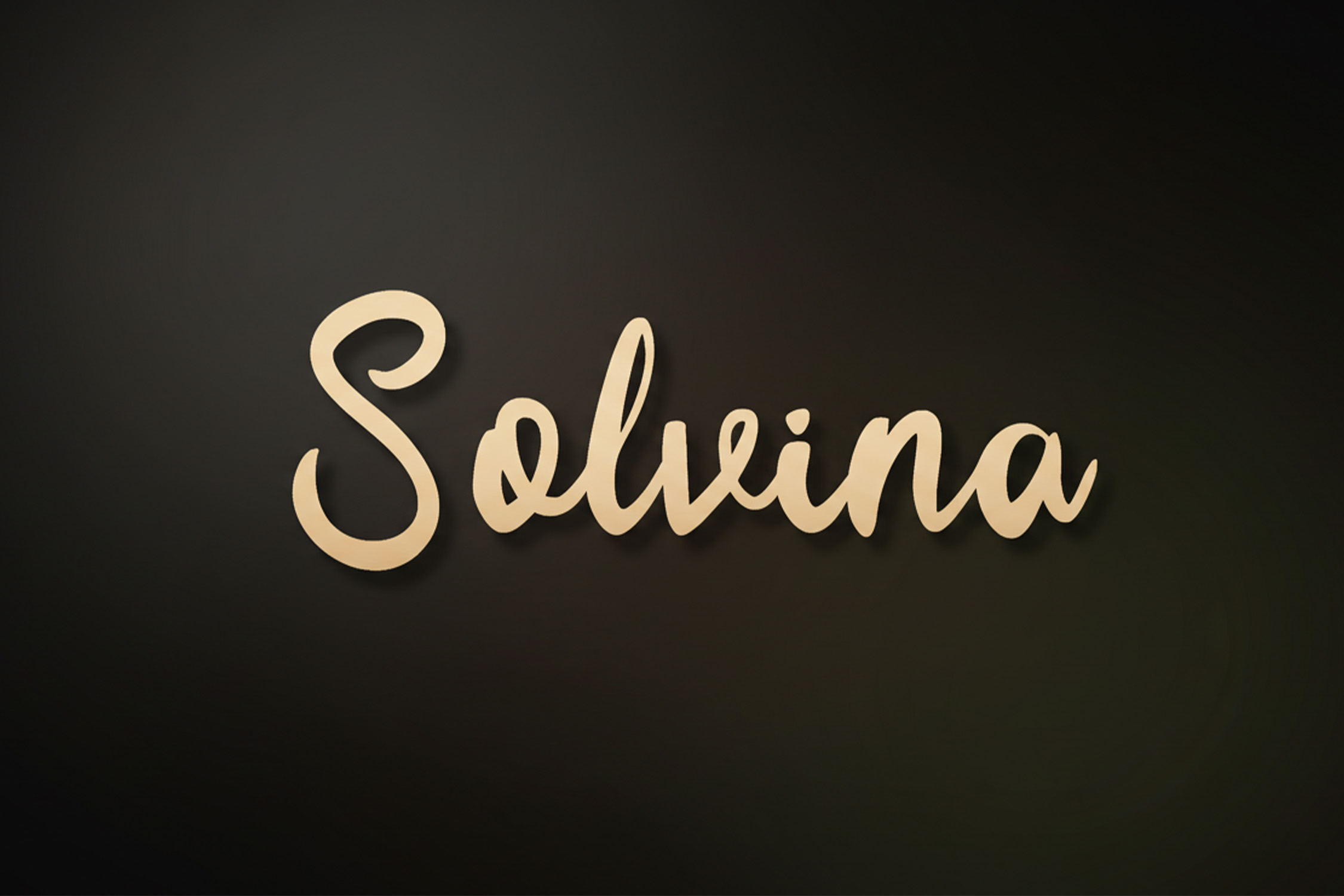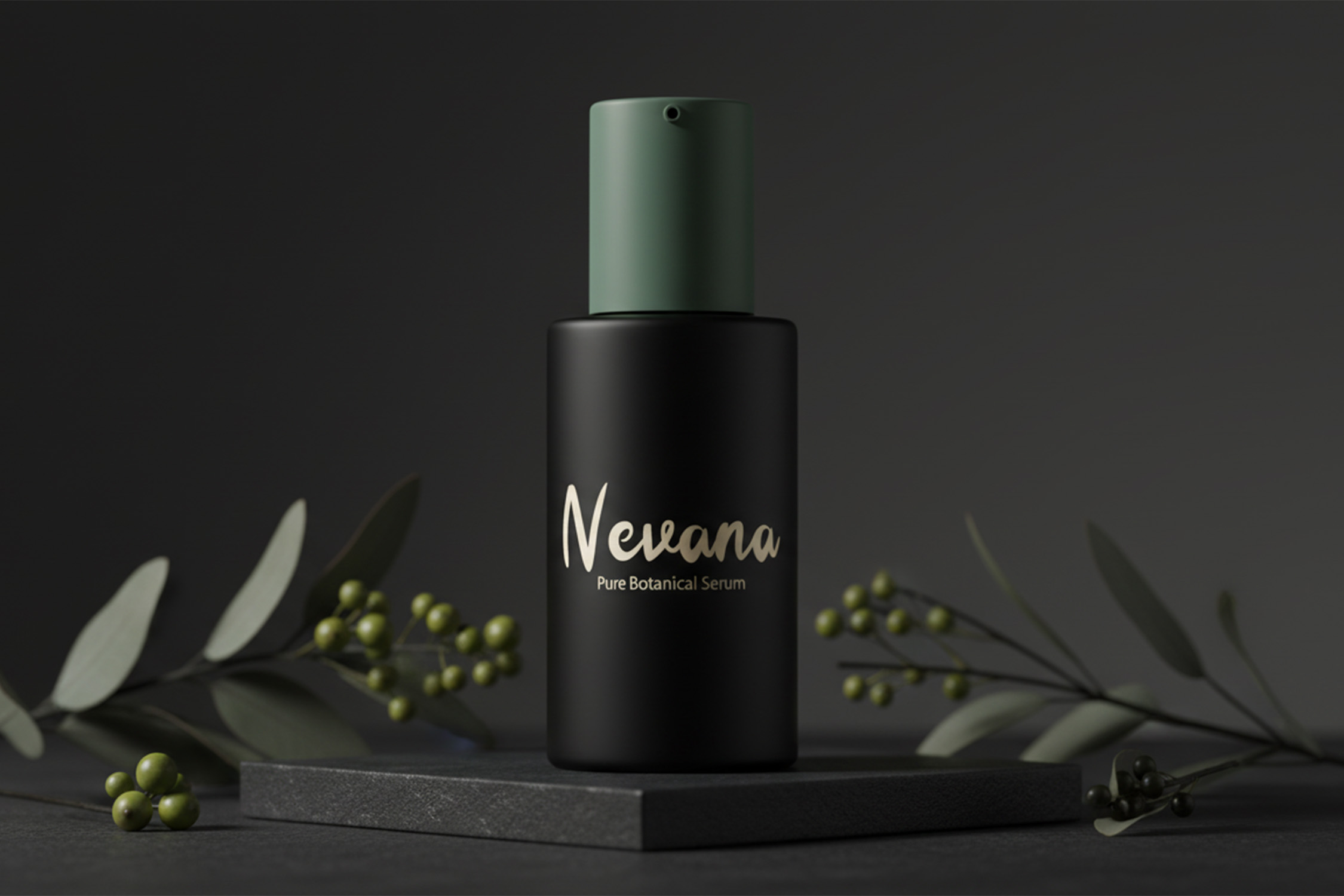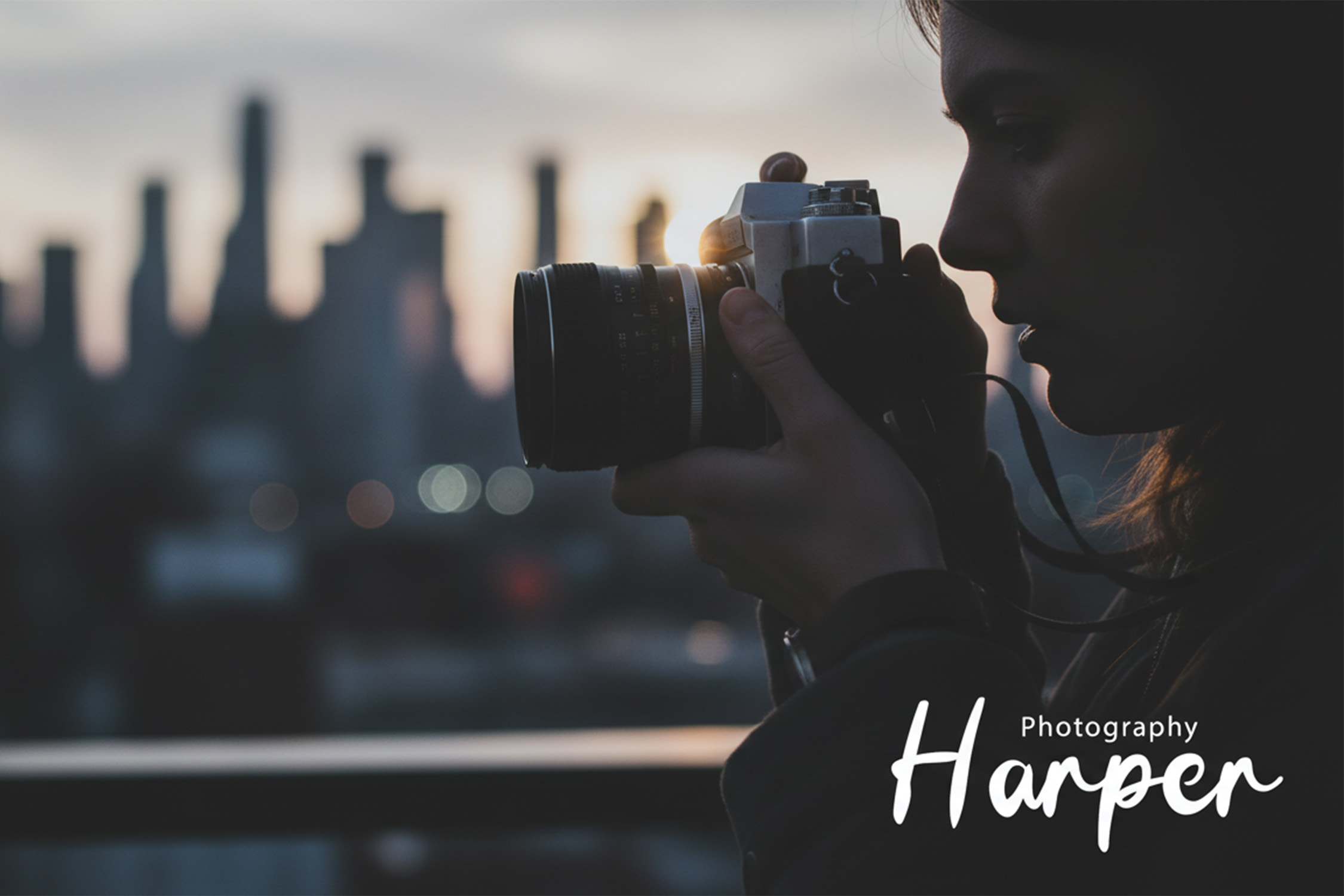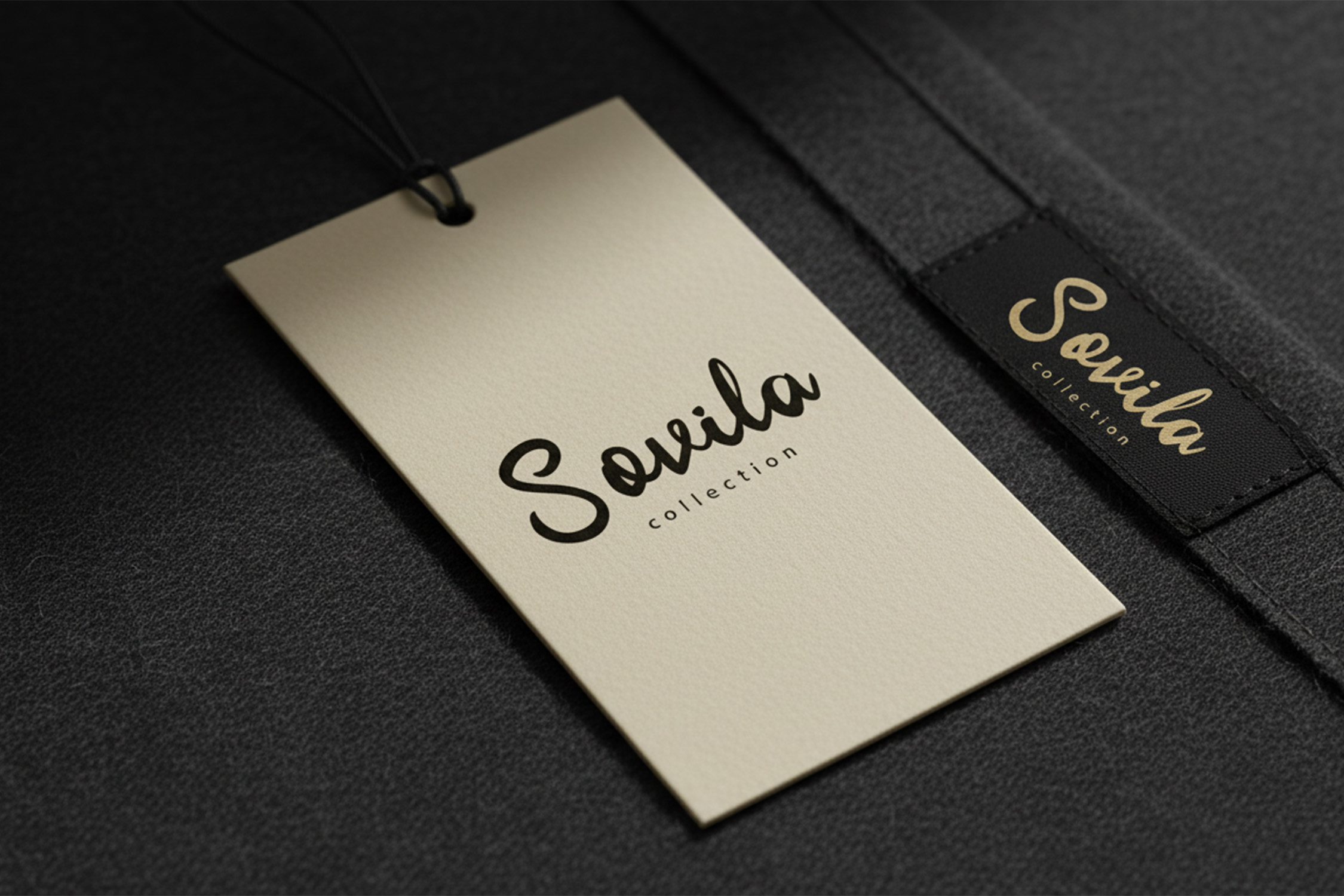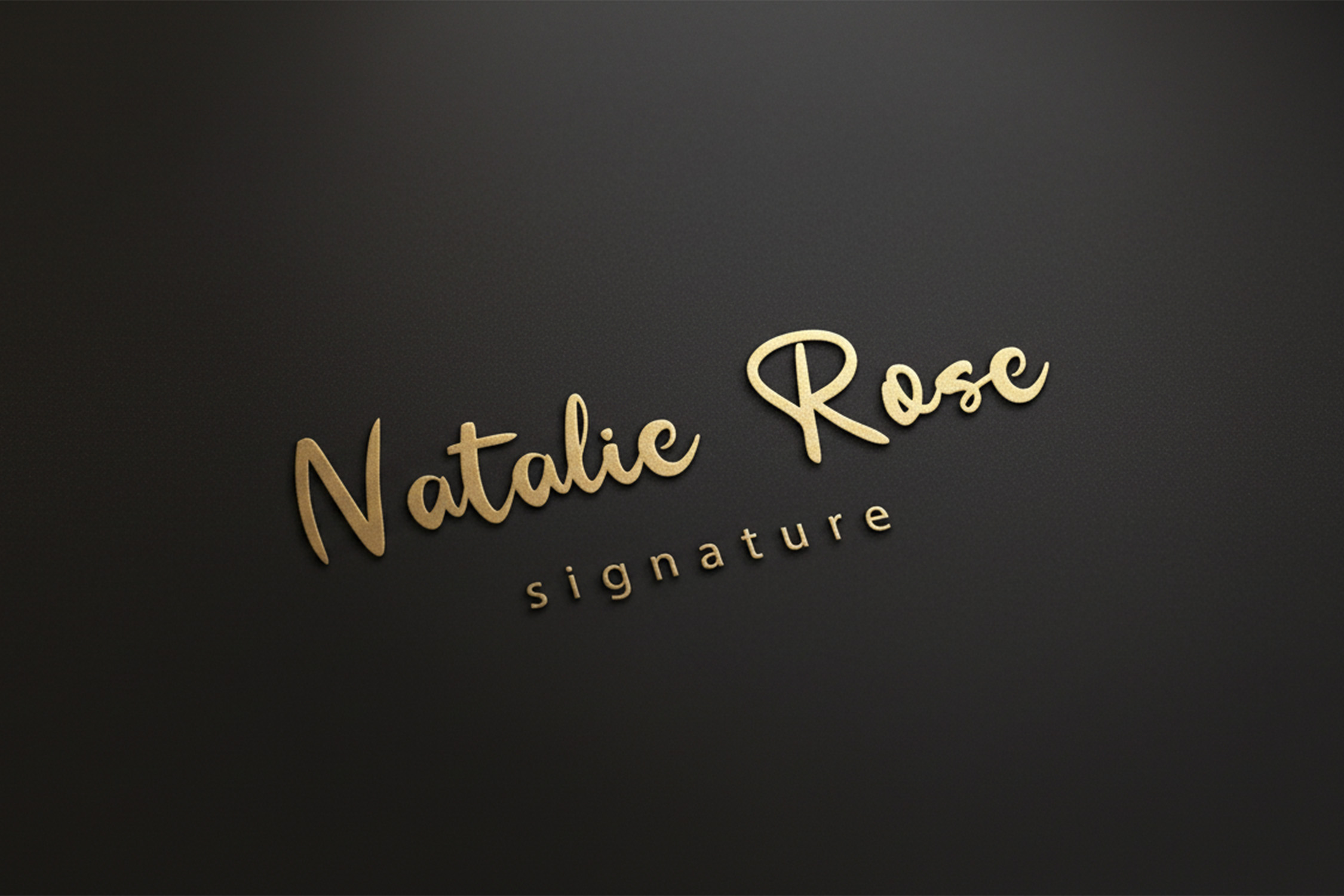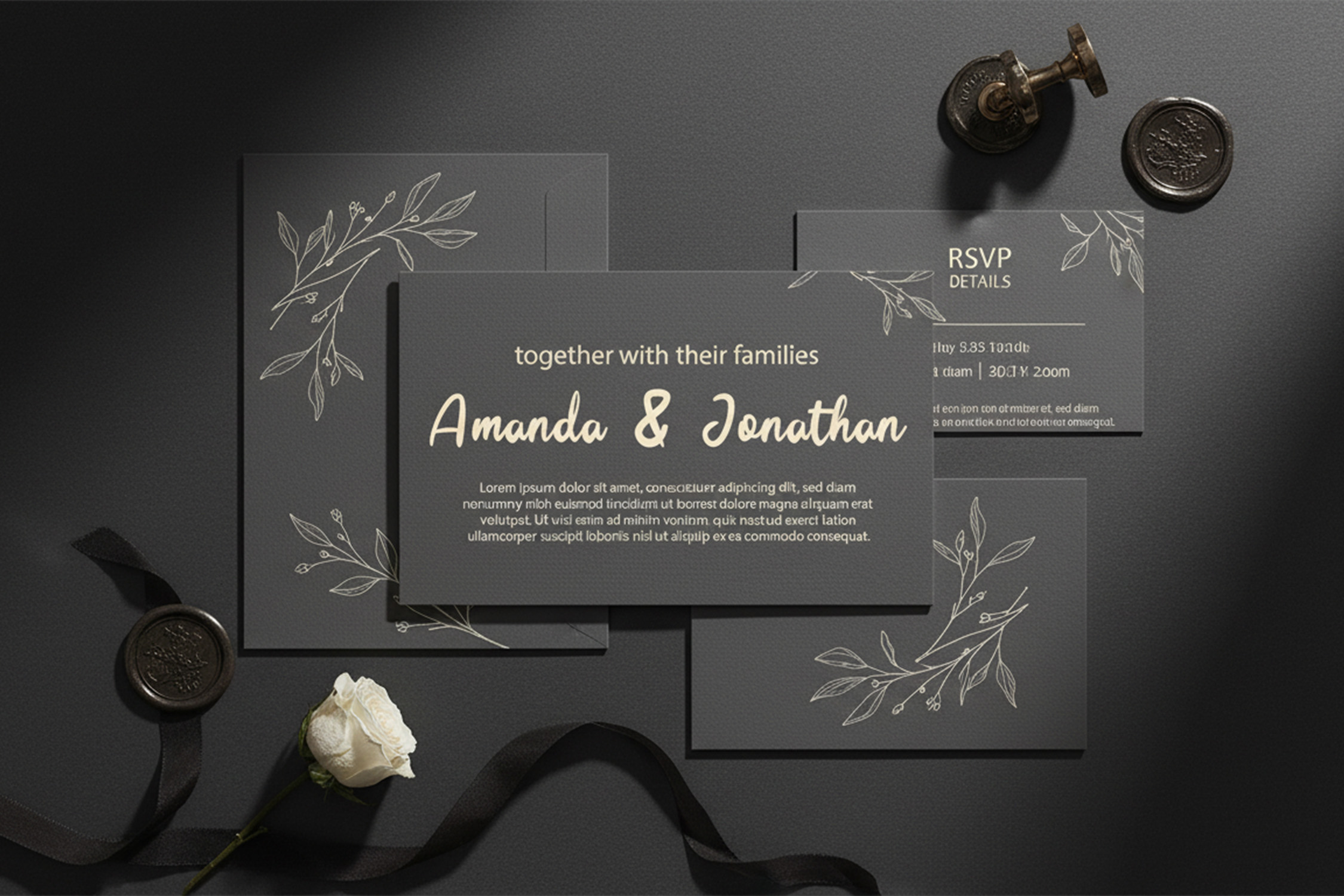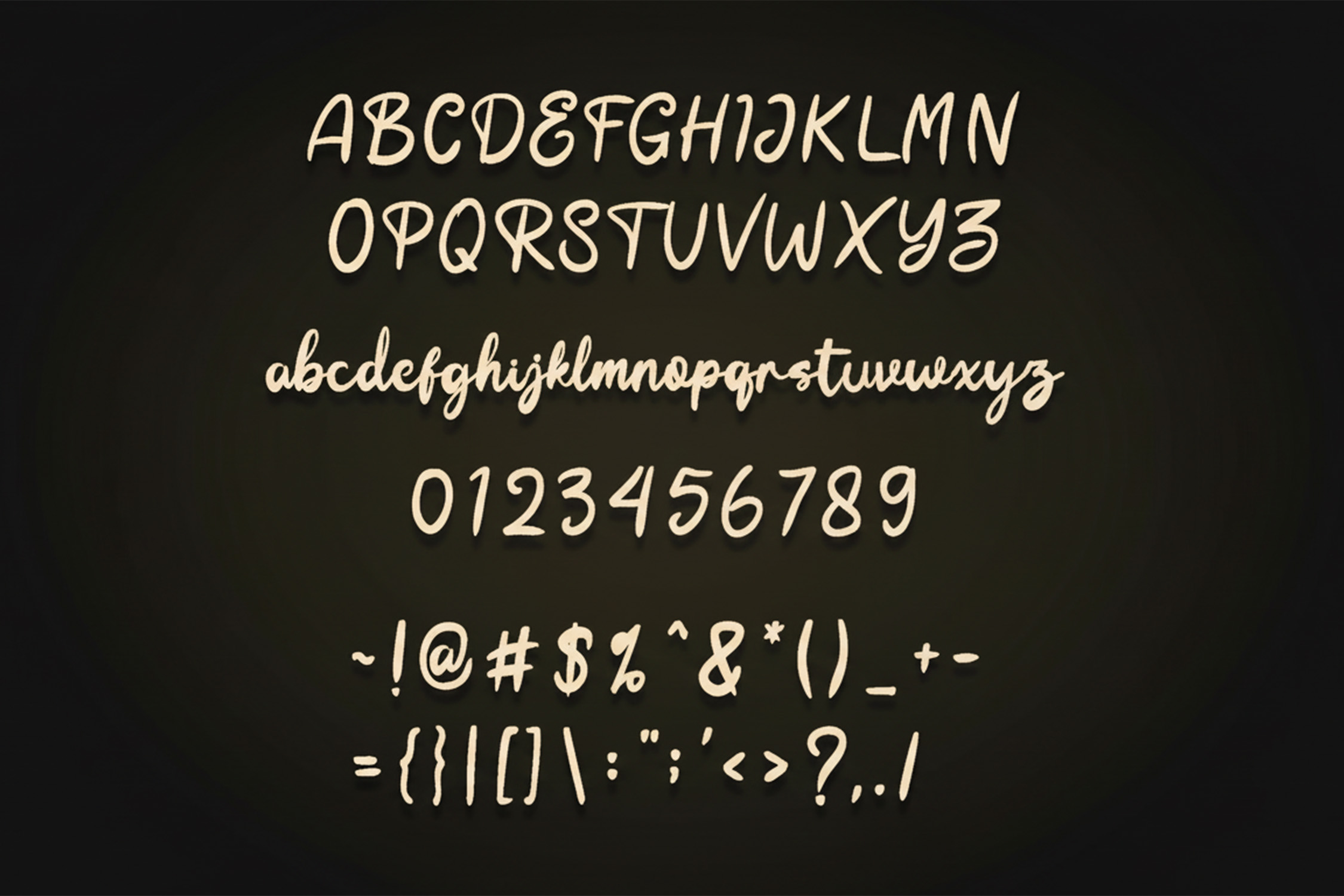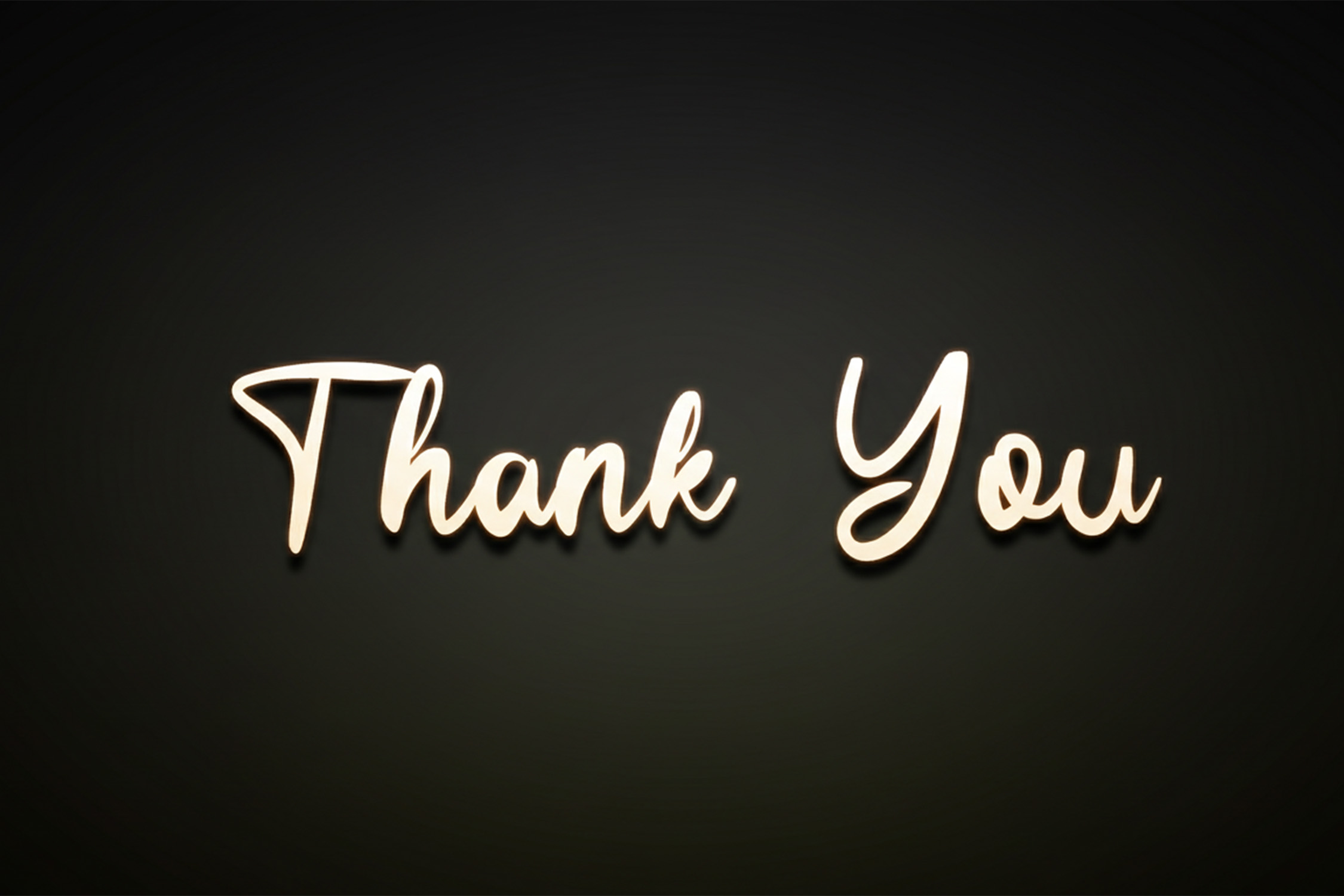
Solvina Elegant Script Font is a graceful and luxurious script typeface created to add a refined handwritten touch to your designs. With its flowing strokes, smooth curves, and elegant rhythm, Solvina is ideal for elegant logos, fashion branding, skincare packaging, signature logos, invitations, and premium lifestyle visuals. The font combines classic sophistication with modern charm, giving your designs a soft yet confident presence. Solvina’s carefully crafted letterforms ensure readability while maintaining a stylish, high-end feel across both digital and print applications. Whether you’re designing for beauty, fashion, or personal branding, this script font brings timeless elegance and a sense of exclusivity to every project.